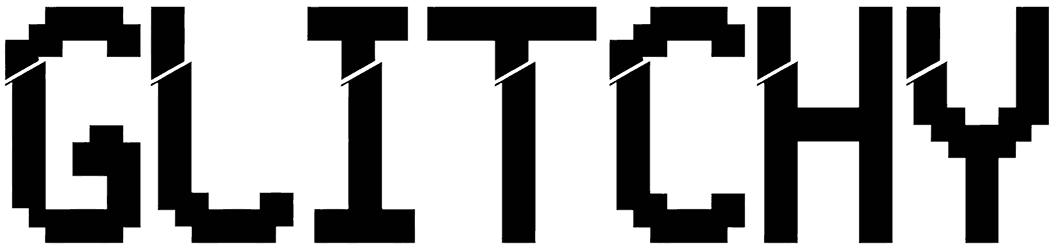
Glitchy Font
The Glitchy is a fancy font with an amusing look that seems entertaining to the viewers. This distorted font is offered in three versions giving you a range of options; however, it does not support numbers and symbols.
Besides, the Glitchy font’s letters seem constructed of pixels, making this font’s style exciting. You may use this glitch font for various cases, such as video games, applications, and social media posts, and create a new experience for your audience.